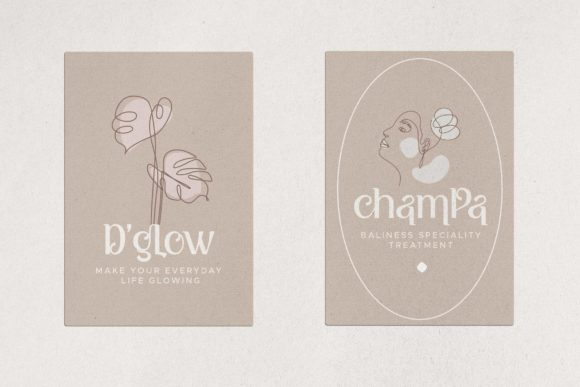
Kattsia Font
Kattsia is a stylish and distinct serif font. Add it confidently to your favorite creations and let yourself be amazed by the outcome generated.